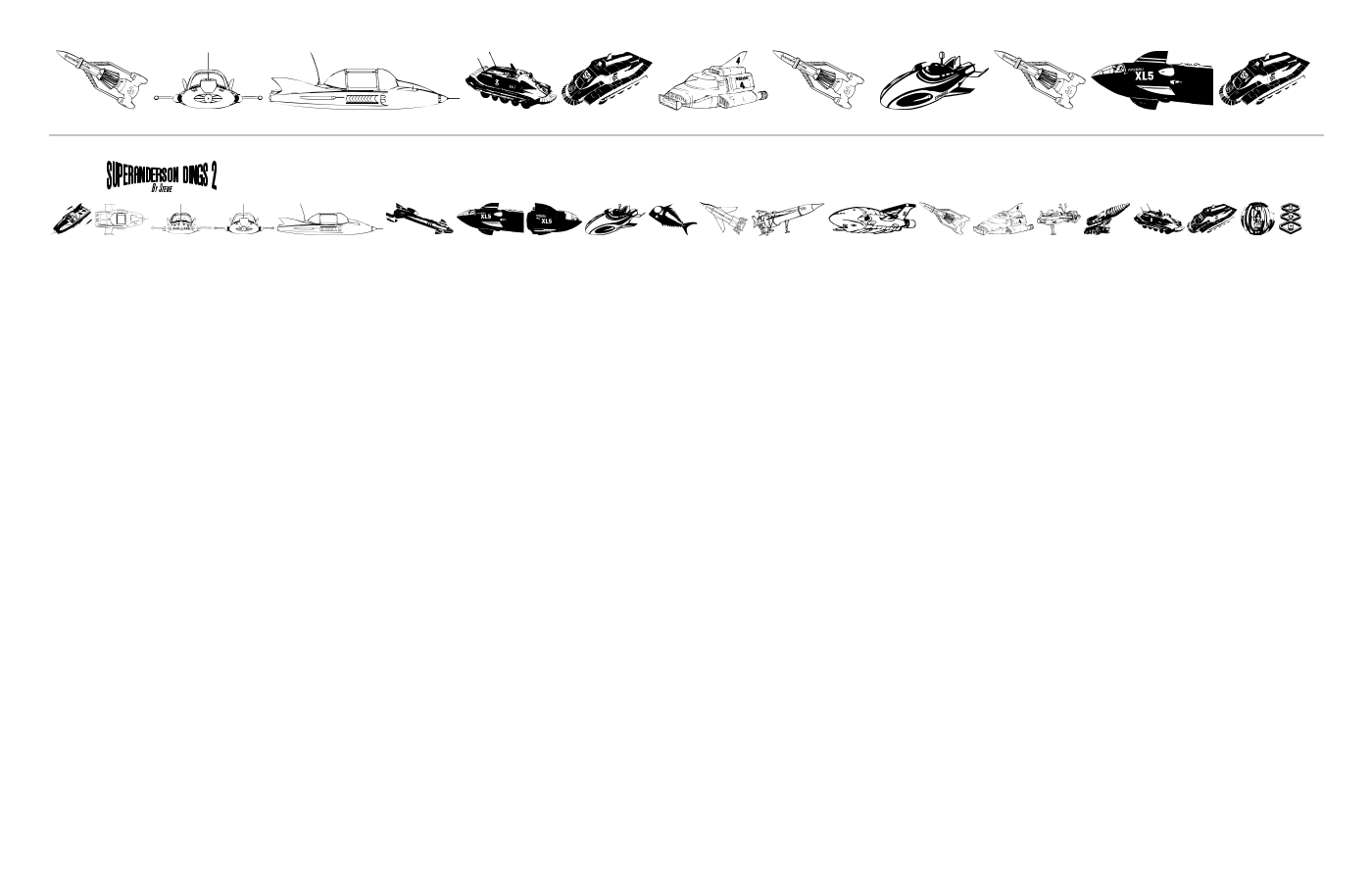
Anderson Dings 2 is a unique dingbat font featuring detailed black-and-white illustrations of vintage spacecrafts and futuristic vehicles. It offers a playful and retro sci-fi vibe, perfect for adding a distinctive, thematic touch to creative projects. This font works best in posters, game design, or any setting where bold, imaginative iconography can shine instead of traditional text.
Anderson Dings 2 Font
About Anderson Dings 2 Font